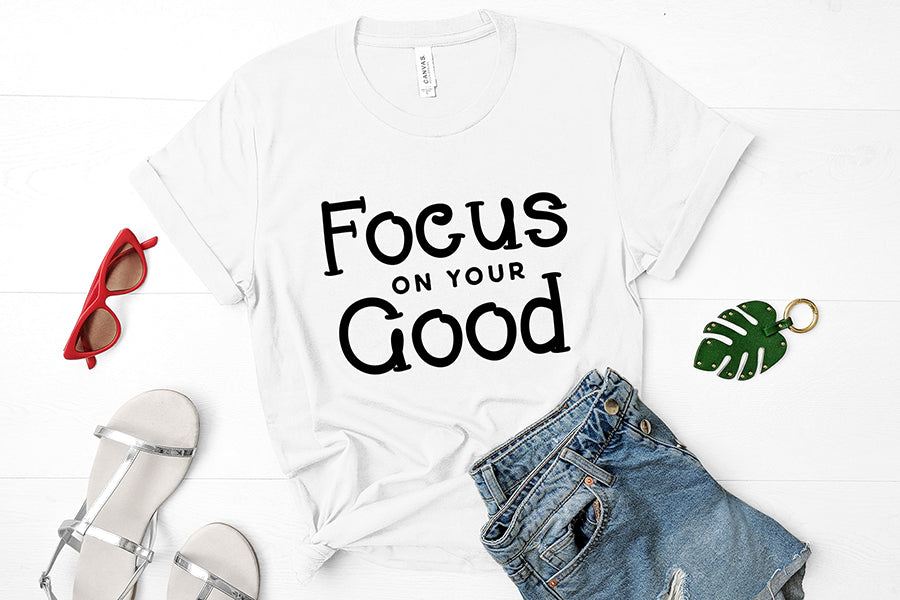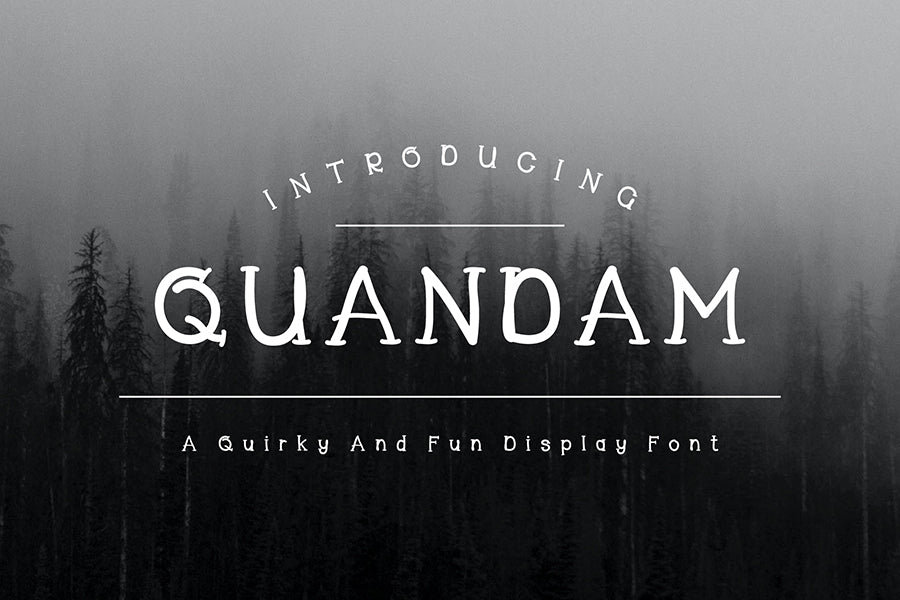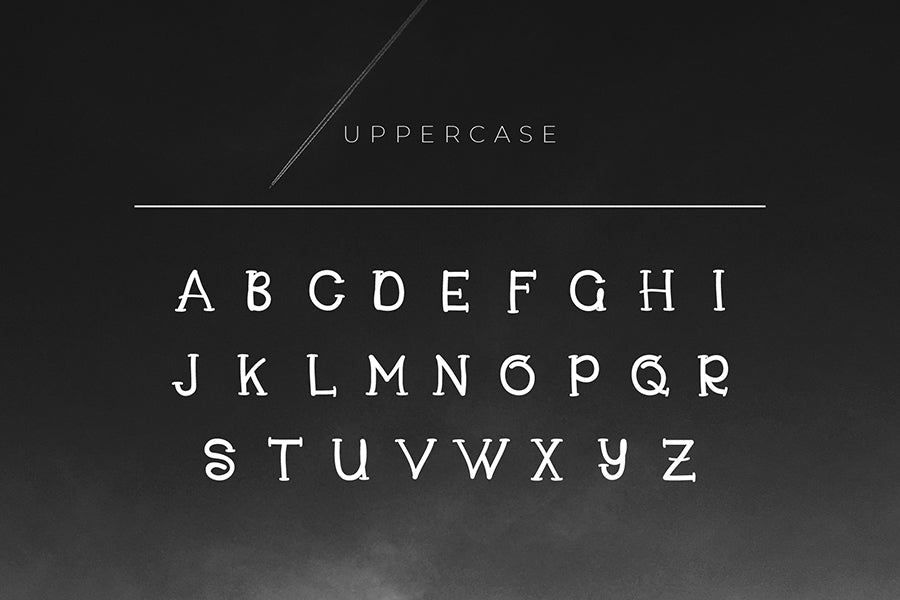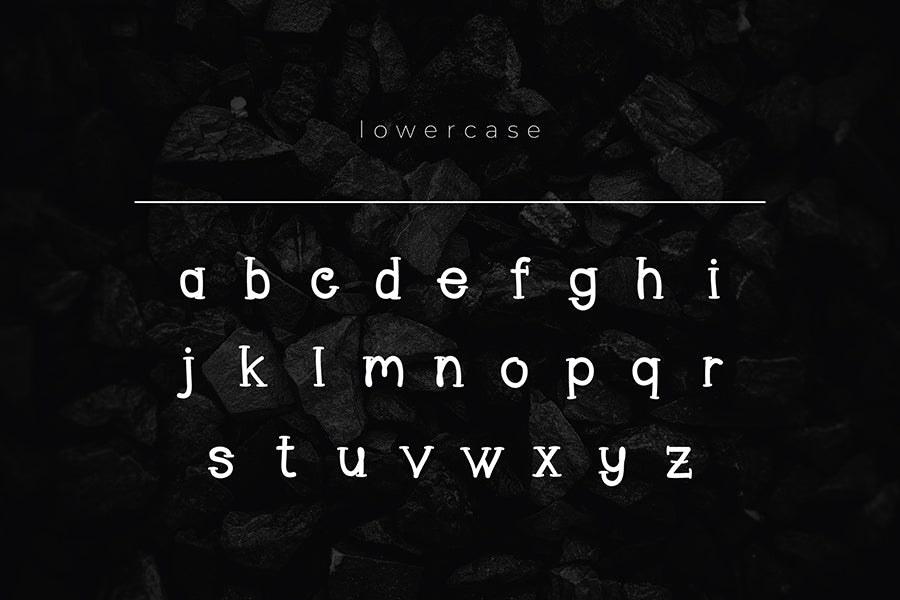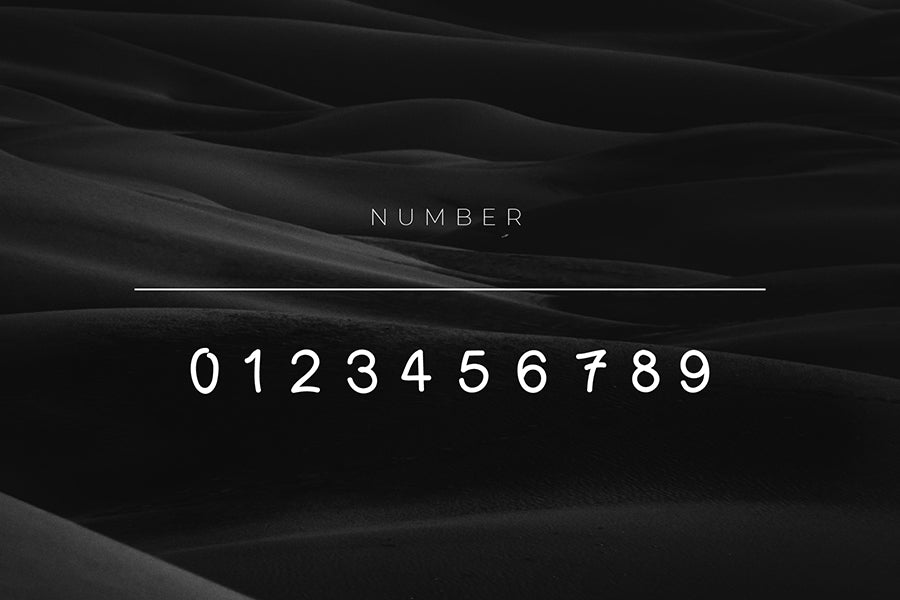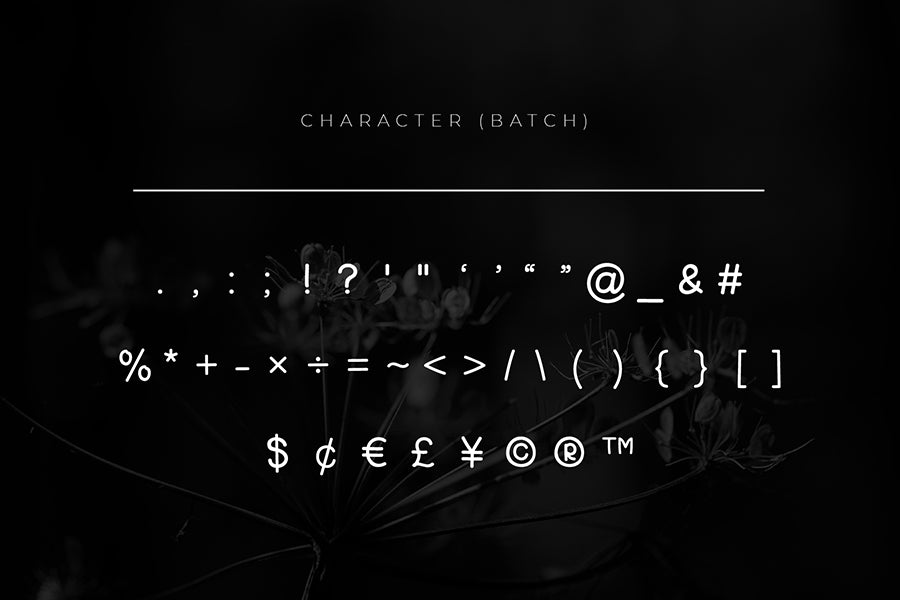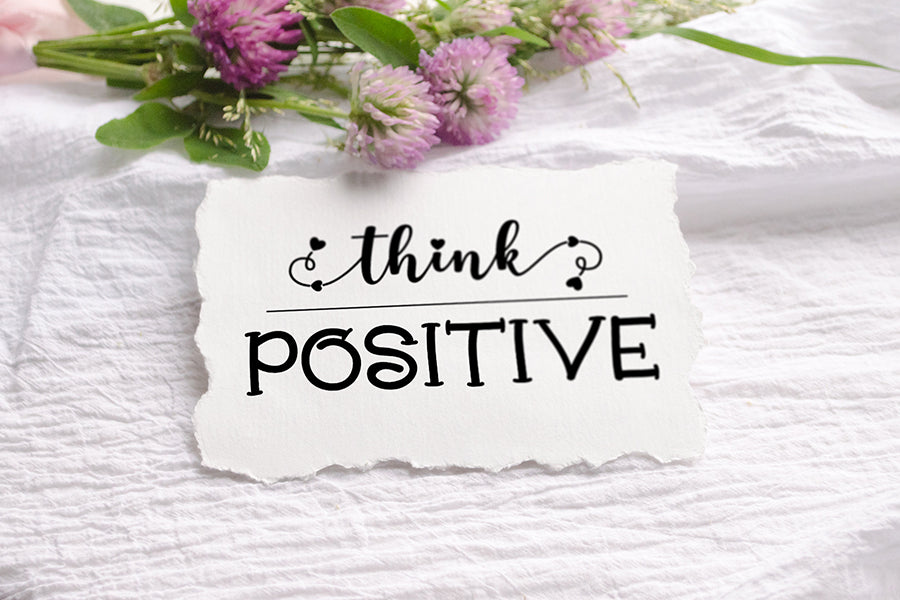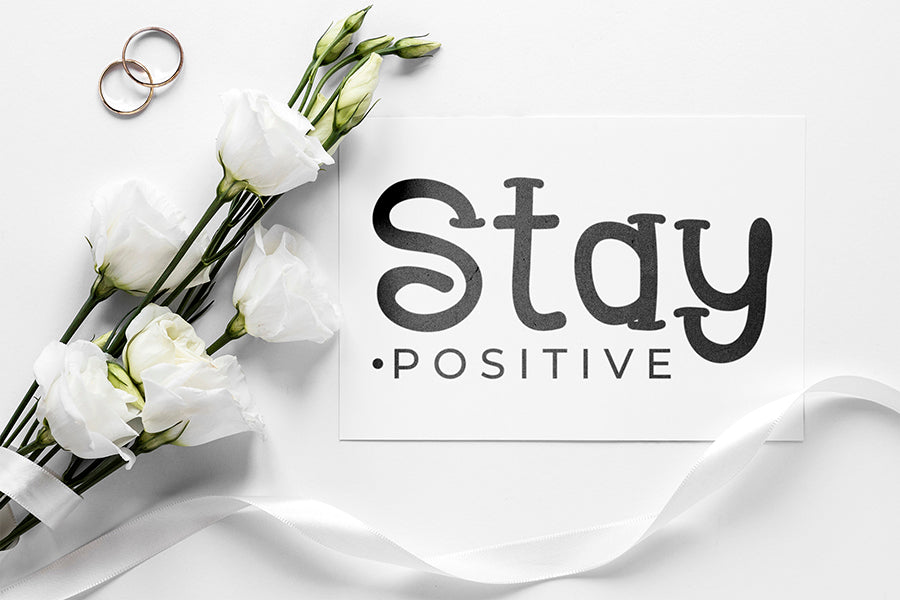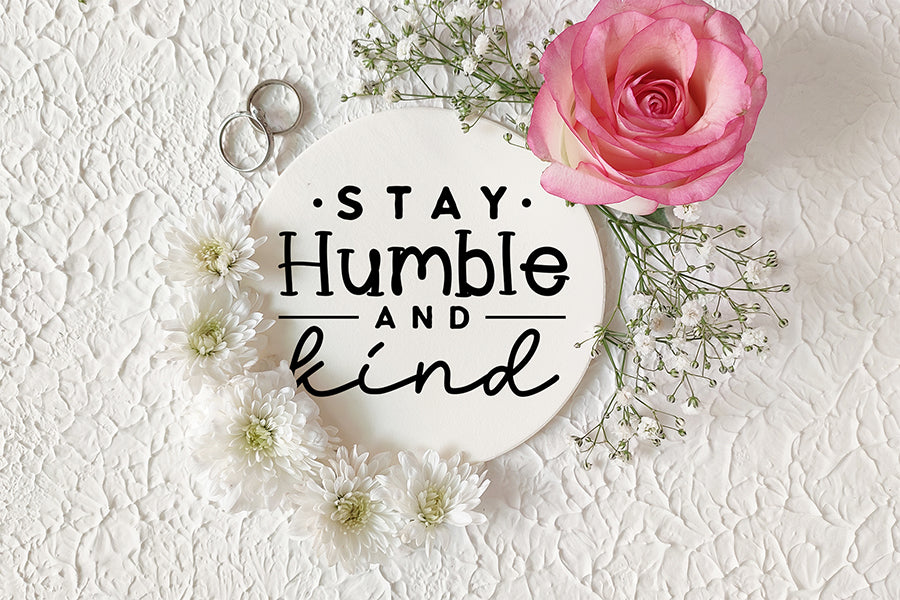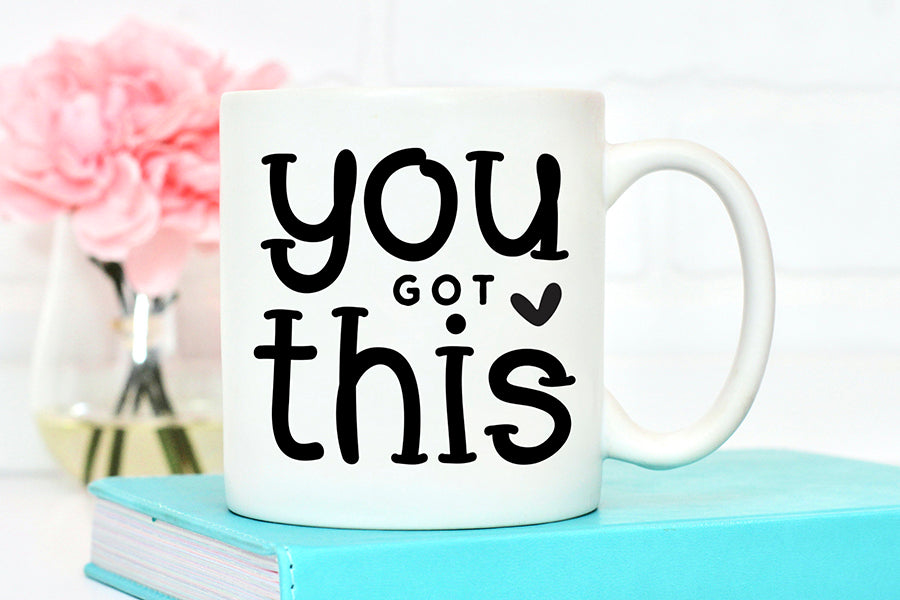
Quandam - A Quirky and Fun Display Font
Quandam is a paintbrush handwritten display font that is defined by smooth curves. It is neat, beautiful, and stylish which is perfect for many crafting projects such as wall displays, advertisements, product packaging, labels, t-shirts, mugs, signs, cards, and much more.